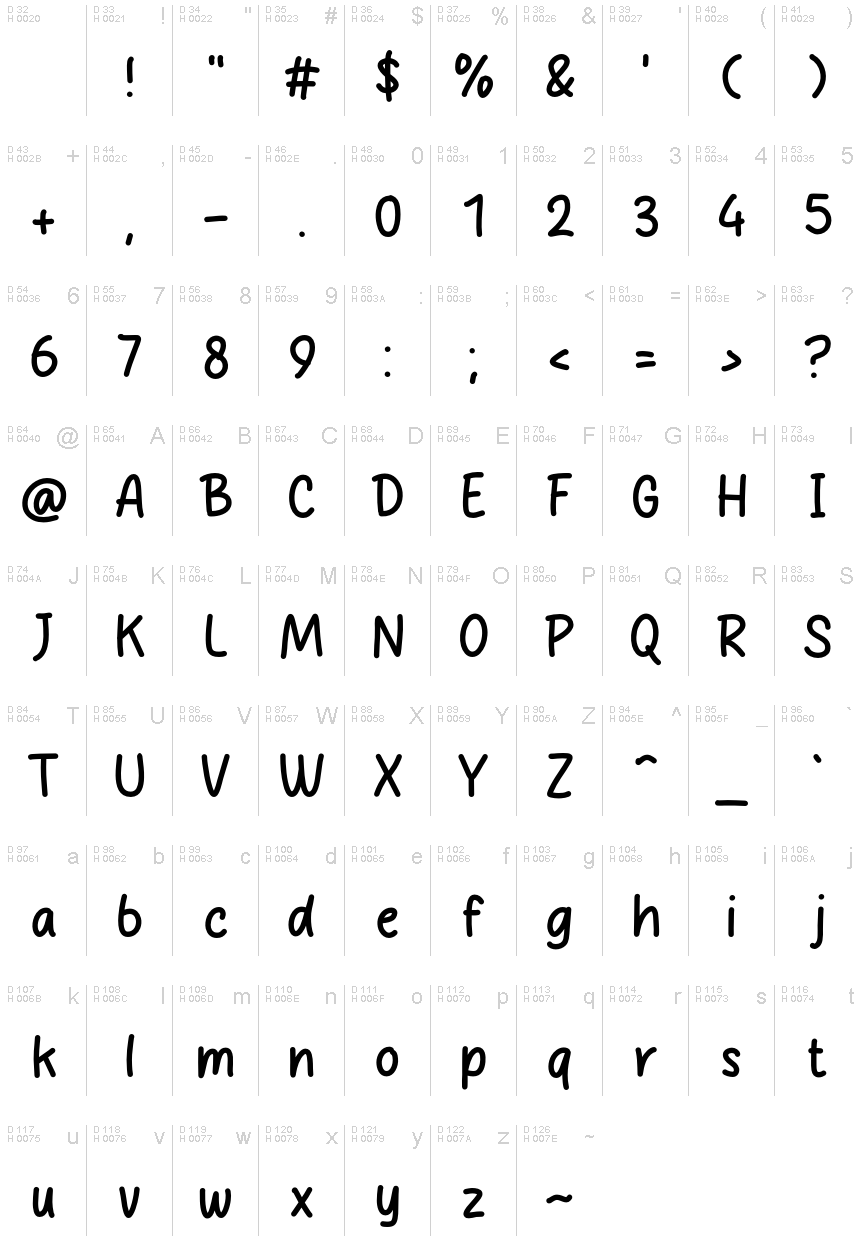
Sylvia Angel
Sylvia Angel font is a handwritten font from MJType that exudes a smooth, casual, and relaxed vibe. The friendly and approachable look of this typeface makes it ideal for use in various contemporary applications from personal branding to informal invitations and more! Follow its curves as they add creativity to every line with capitals and dashing lowercase letters.